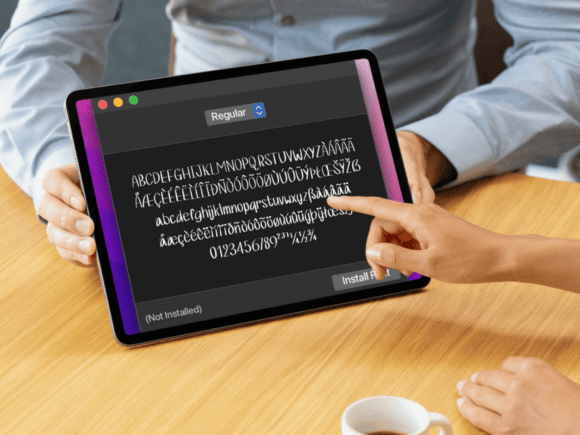
Peterkai Font – Free Download
Introduction to Peterkai Font
🌟 Peterkai Display Font Peterkai is an adorable, handcrafted display font bursting with personality, featuring a charming uneven baseline and a whimsical, wobbly outline that makes every word feel custom-drawn.
Its tall, condensed structure and rounded terminals give it a cheerful, youthful energy, making it instantly unique and approachable The design includes a subtle drop shadow effect visible in the preview, suggesting it works beautifully for layered designs and color application, adding depth and dimension effortlessly.
Key Features of Peterkai Font